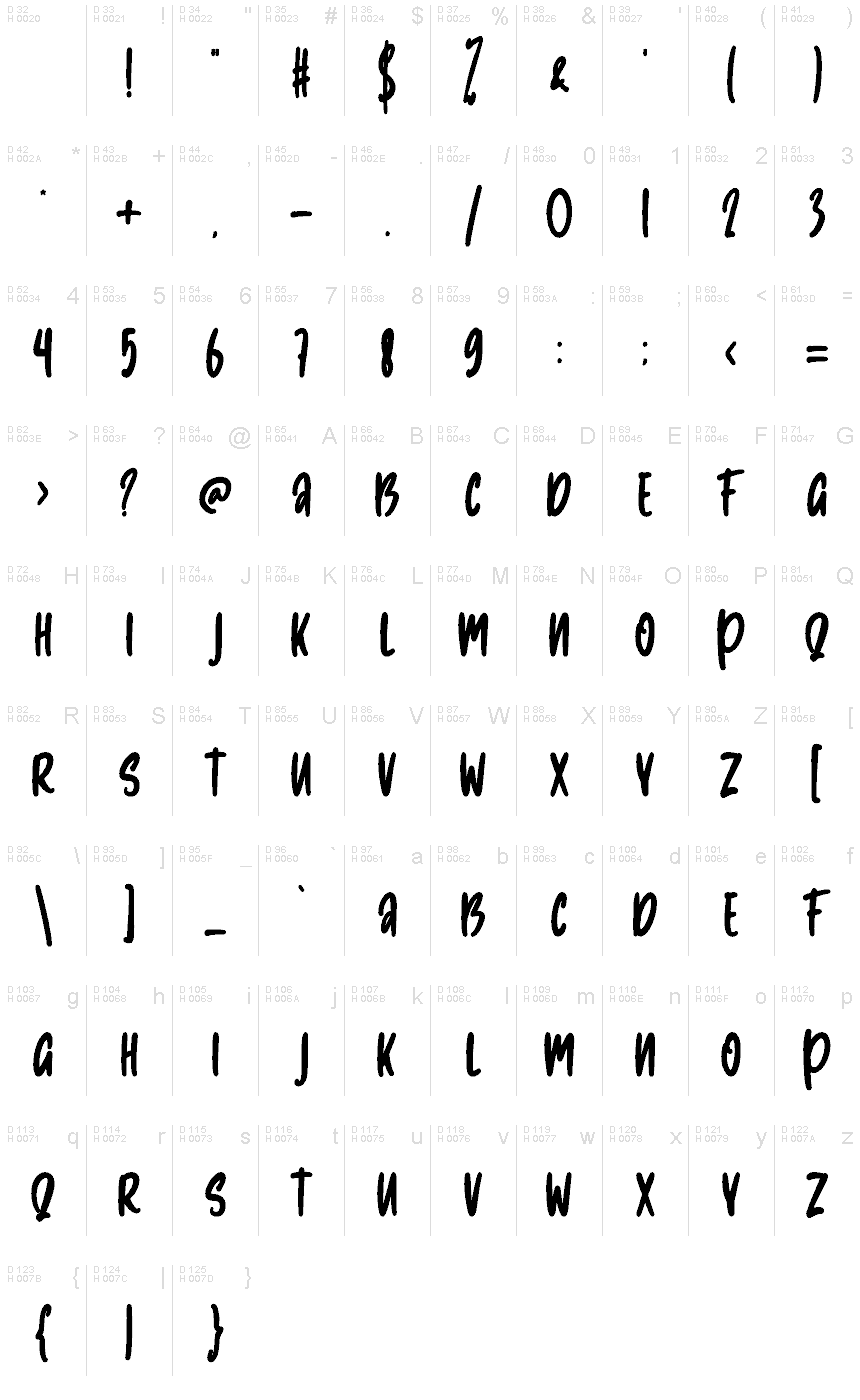
Scarlea
Scarlea font by Skiiller Studio is a condensed brush font with a playful retro-inspired, casual art style. It flows effortlessly along elegant curves that give it an extremely artistic flair and hand-drawn aesthetic. With its friendly tone, the typeface projects harmony in every sentence!